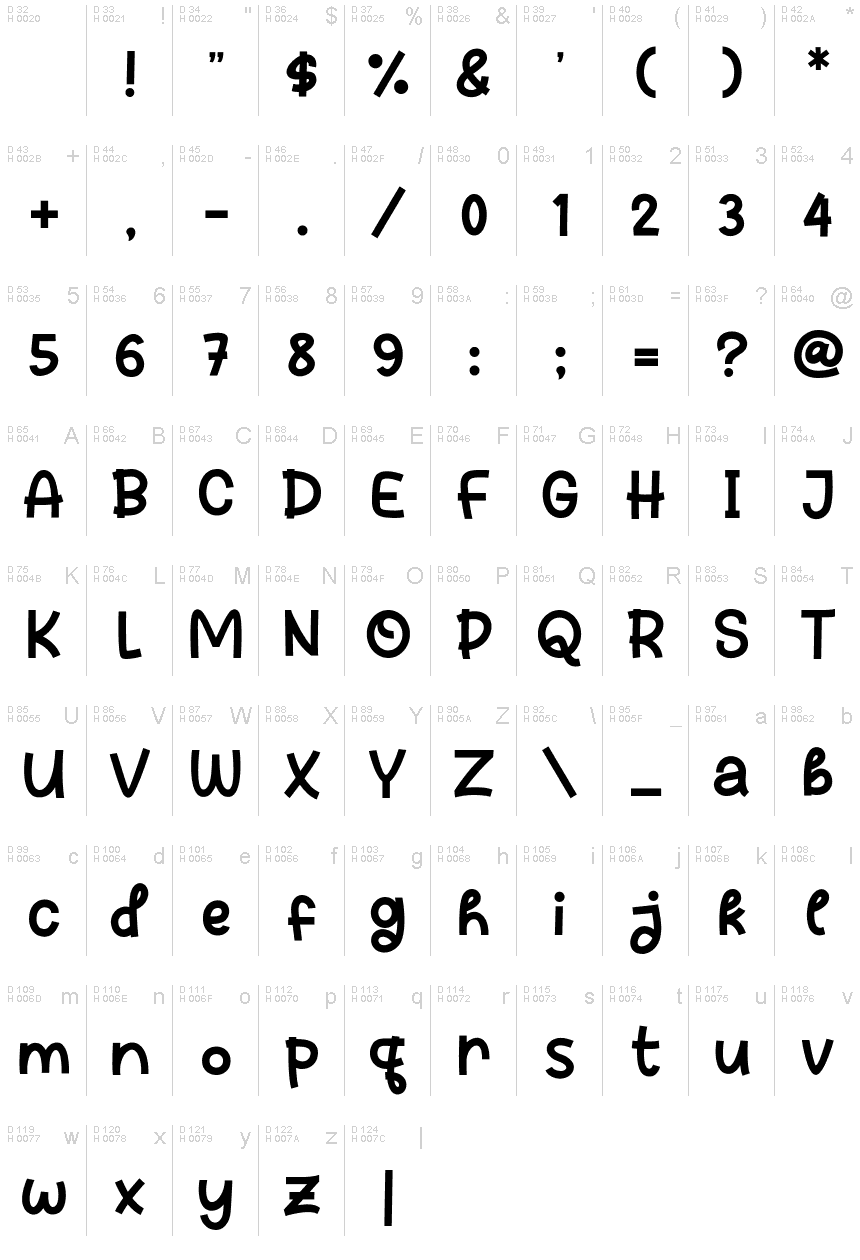
Cheese Bread
Cheese Bread is a unique display font created by Khurasan. Its cartoon style makes it great for projects like comic books, logos, and children's books. Let your creativity run wild with Cheese Bread!